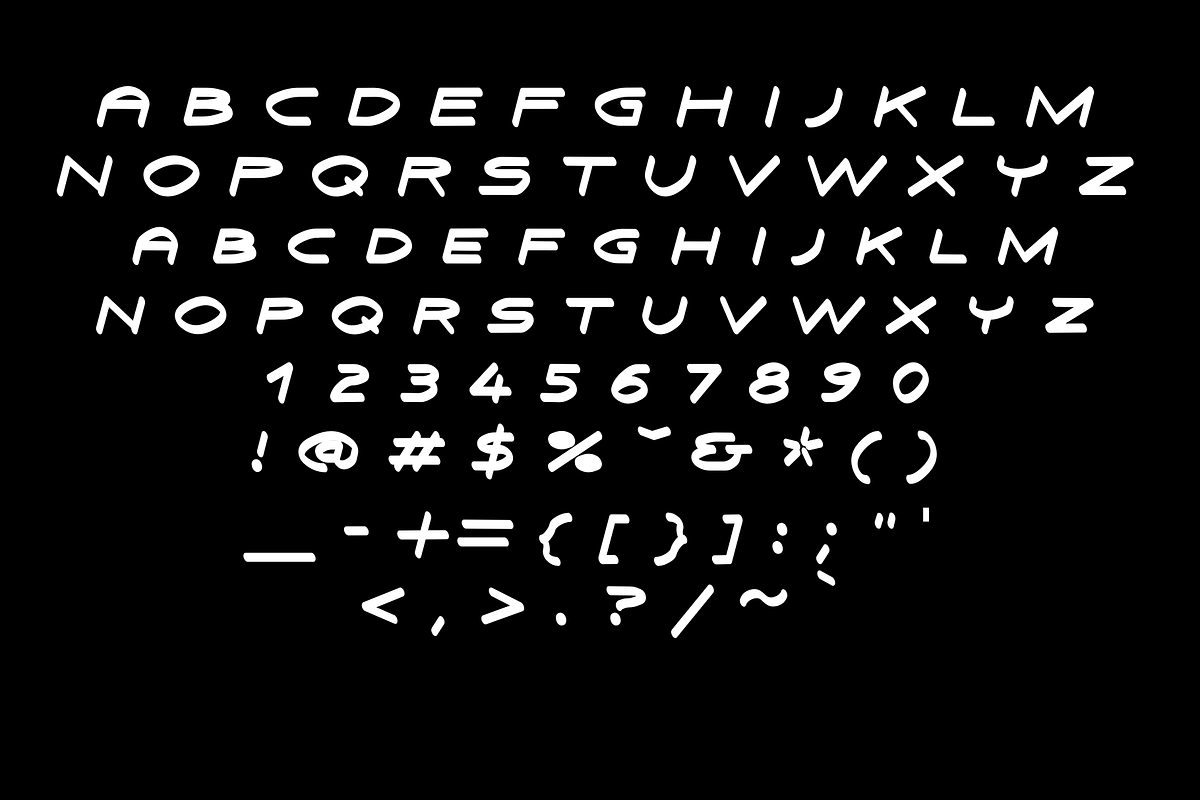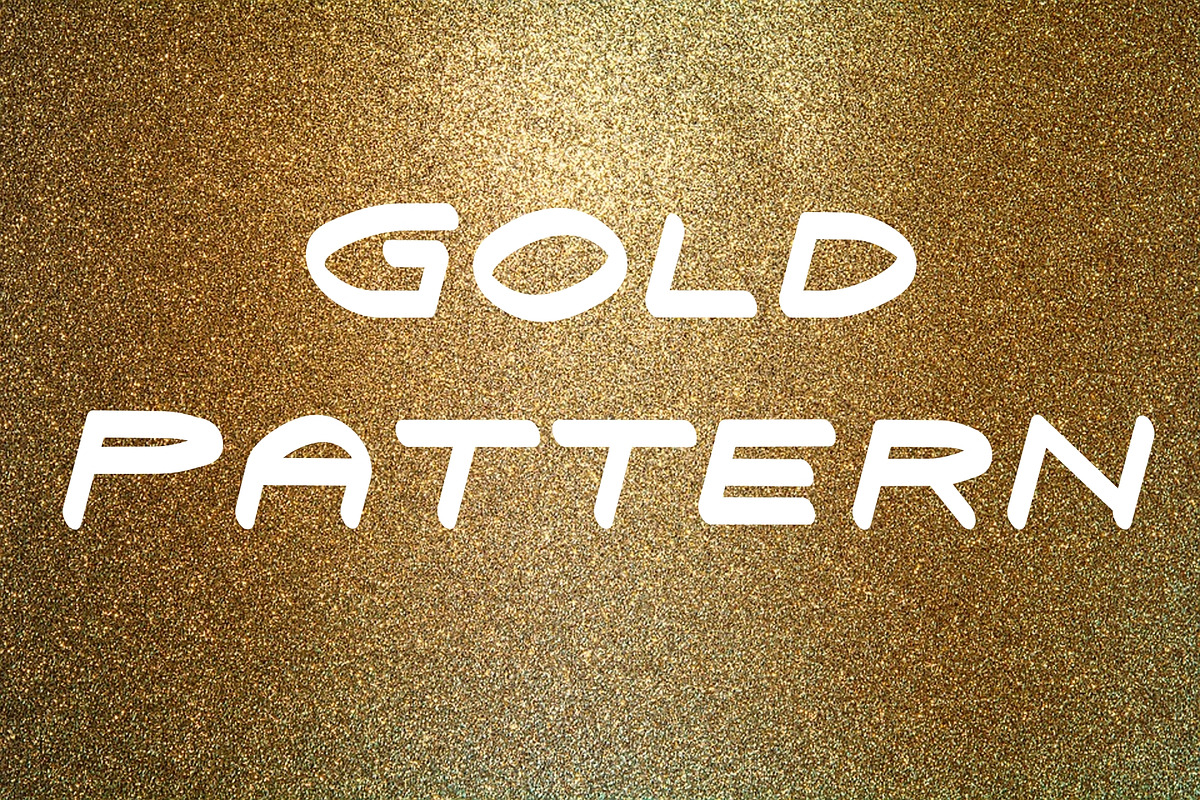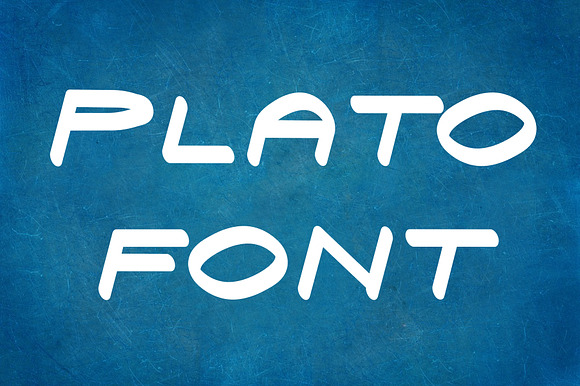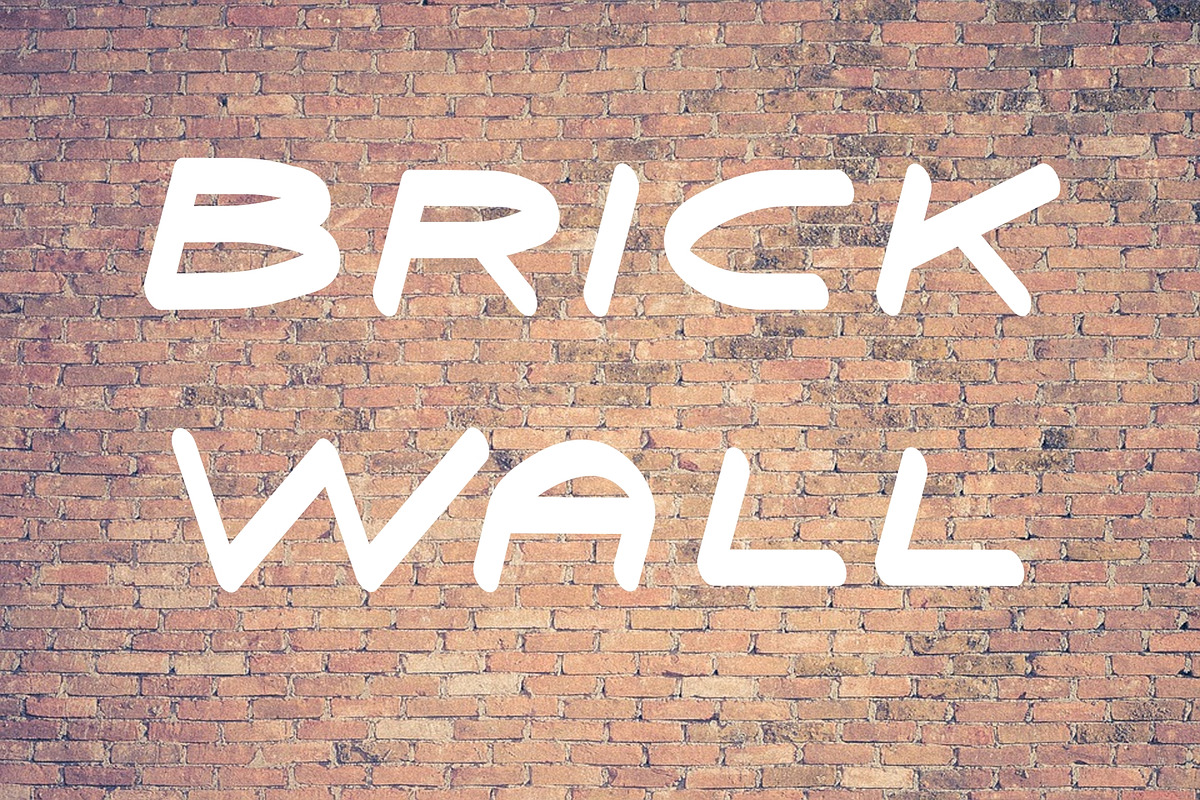
Plato Font
Plato Font by ultimatefontcreator is a font selected for branding, posters, packaging, typography.
Why Plato Font is worth a look
Plato Font by Ultimate Font Store fits naturally into Branding, posters, packaging, typography.